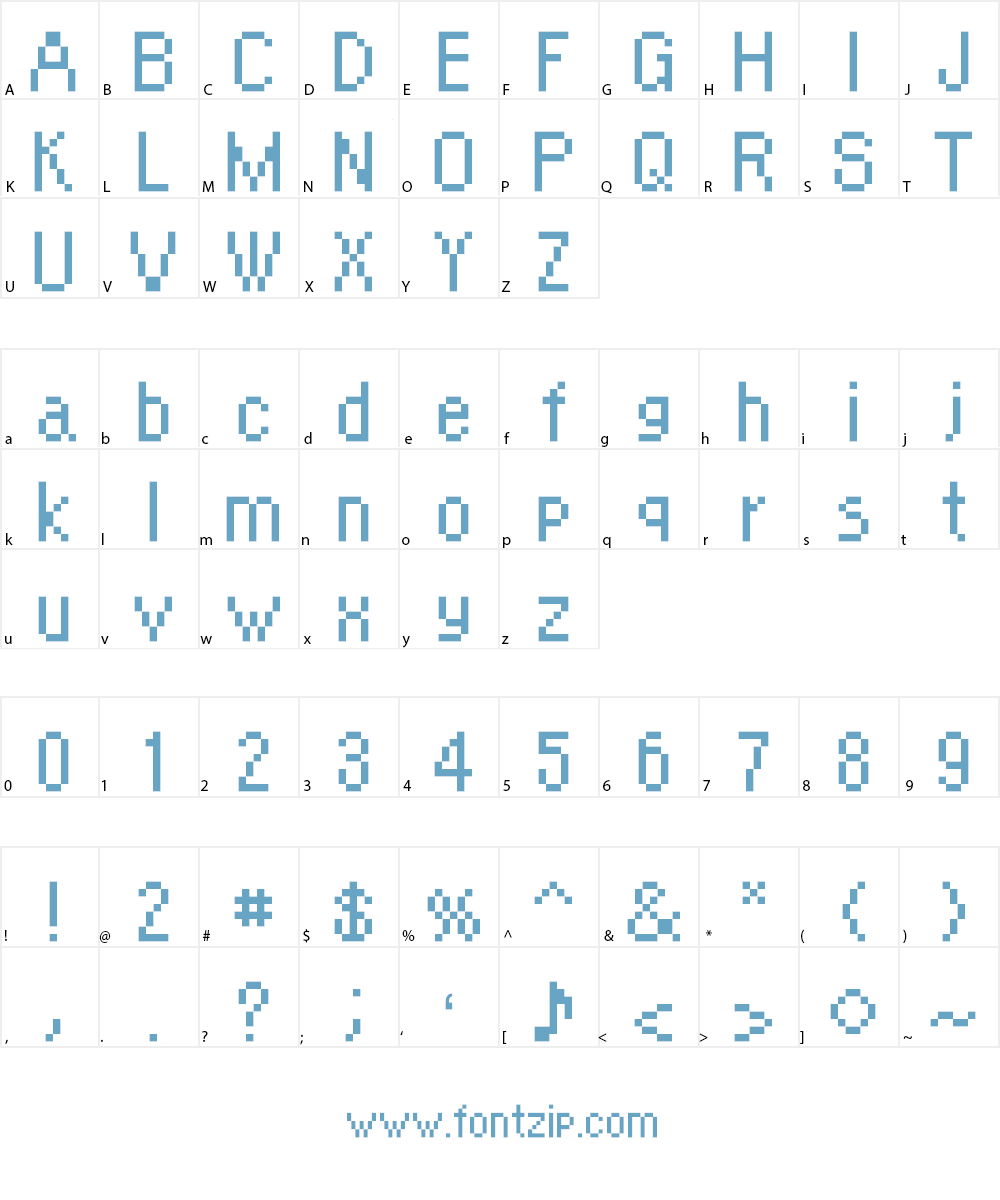
Original font created by me based on the Mother 3 / Earthbound 2 translation font The original translation font was created by many talented individuals and credit belongs to them (they have approved of the font). Visit http://www.earthboundcentral.com for more cool Earthbound stuff/fonts.